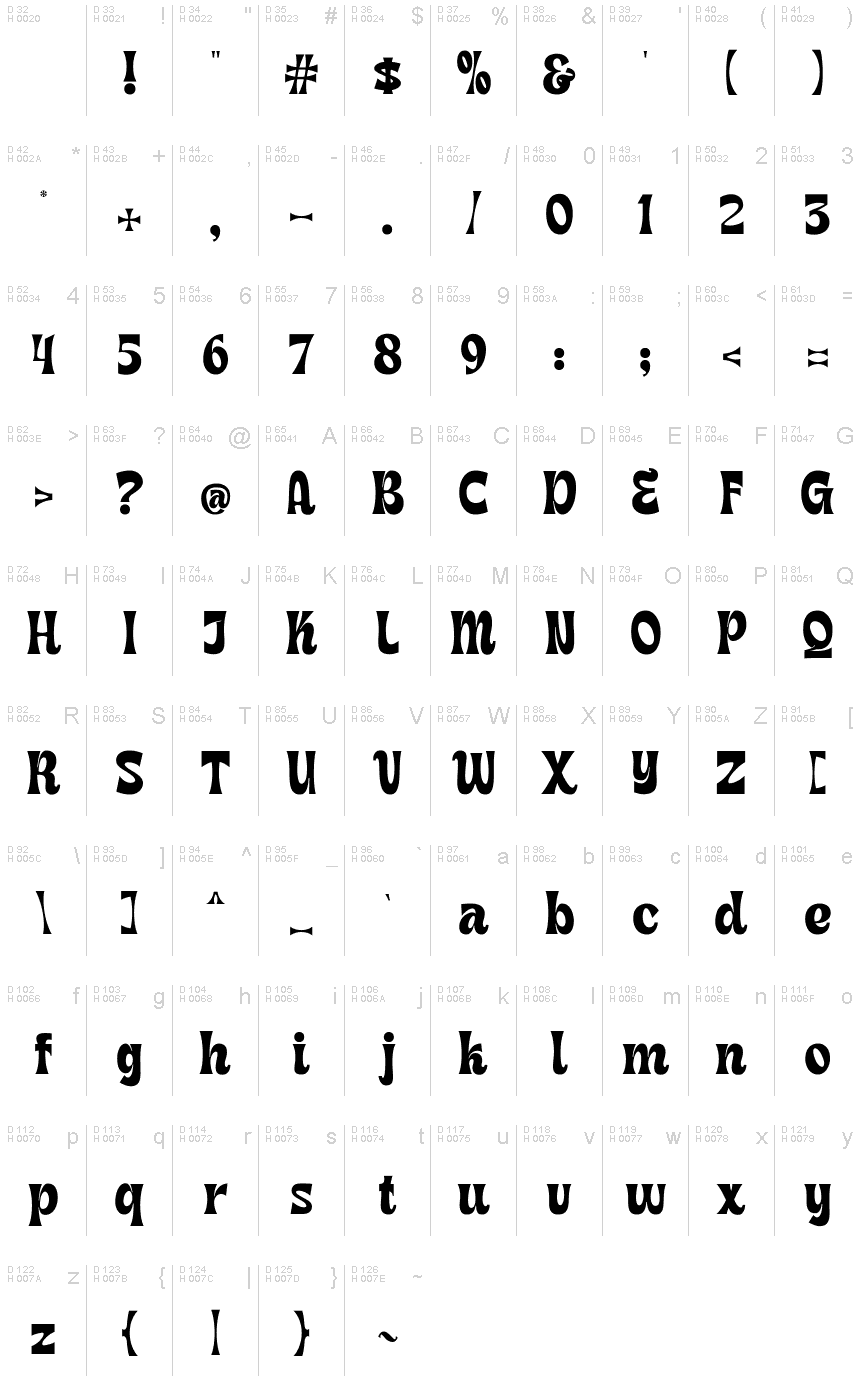
Happiness Mood Demo Regular
Happiness Mood by madeDeduk is a display font that radiates positivity and a playful spirit. With its groovy style and bold weight, this typeface brings to mind the carefree vibes of the '60s and '70s, updated with a modern twist that makes it ideal for contemporary designs. The smooth curves and flowing lines give it an aesthetic charm that is both visually delightful and easy on the eyes.
Perfect for projects that require a touch of whimsy or nostalgia, Happiness Mood's full-bodied characters are designed to stand out—making them perfect for headlines, posters, branding, or any creative endeavor where you want your message to pop with energy and joy. Its appealing design not only captures attention but also encapsulates an era of optimism, ensuring your project will leave a lasting impression.
Versatile in its application yet unique in appearance, Happiness Mood is sure to infuse your work with an upbeat atmosphere that resonates with audiences across various mediums.